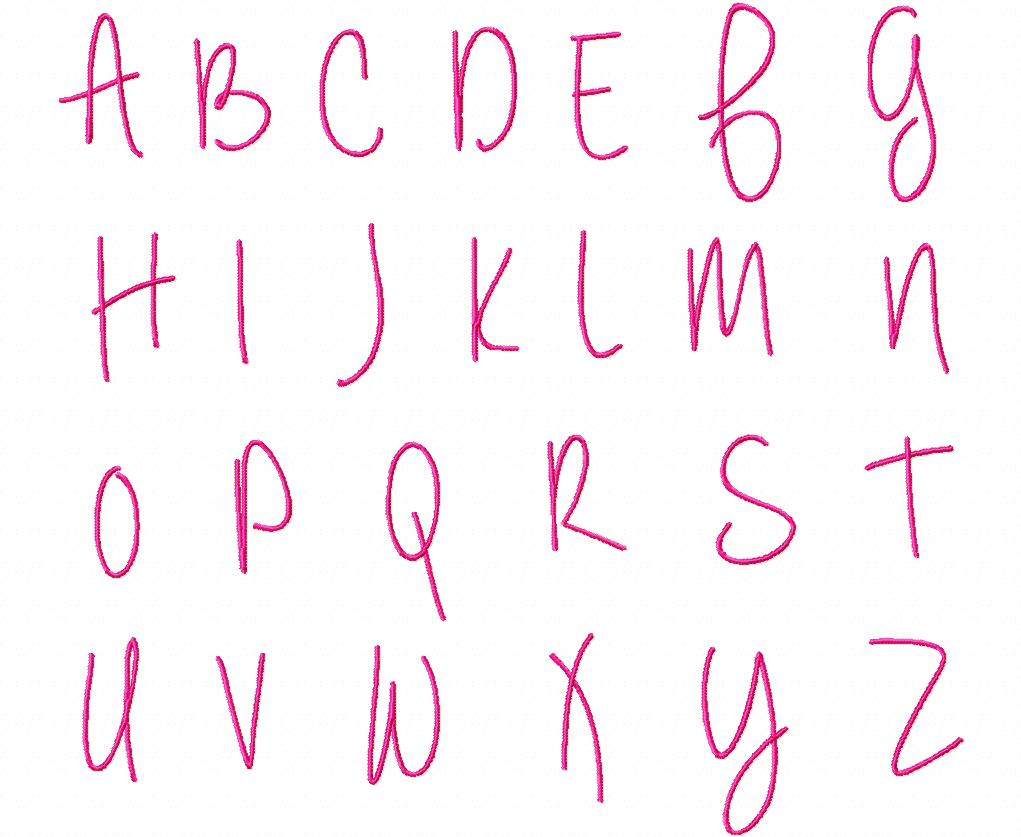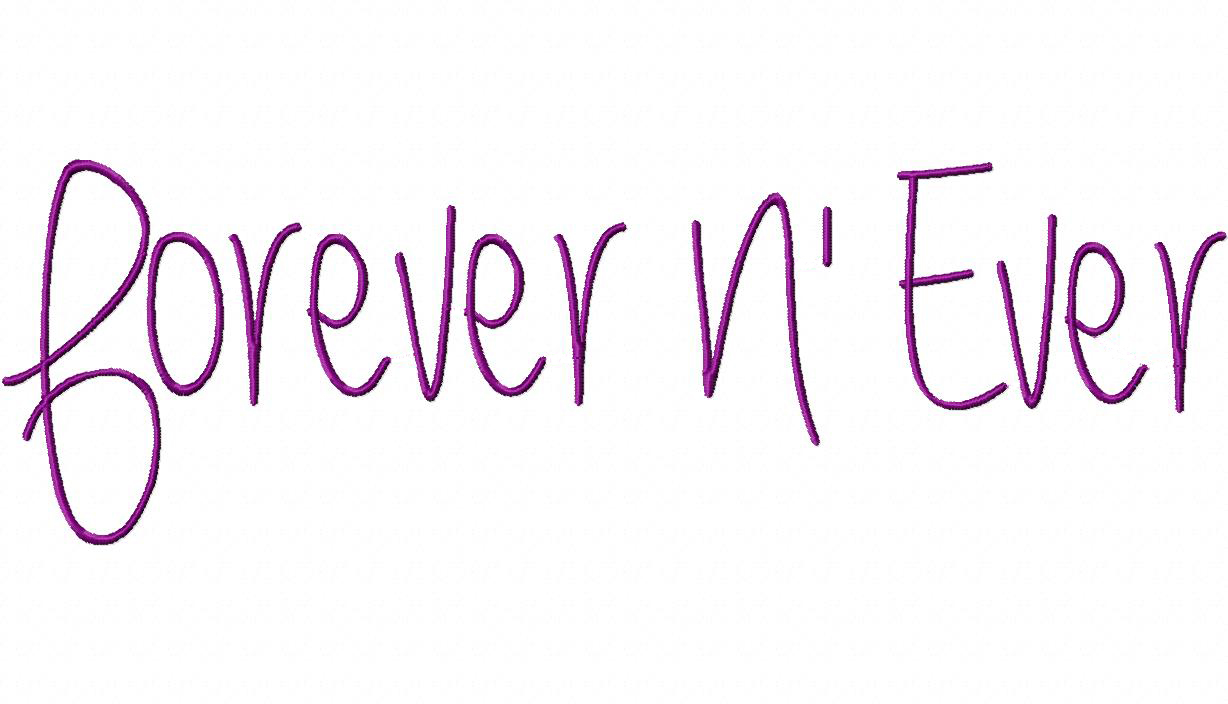
Today's Gold Member design is the awesome and sleek Forever n' Ever machine embroidery design font set. This font is a fully featured set and is a great addition to any embroidery library. Gold Members download below.
The Forever n' Ever Font Set includes Uppercase and Lowercase letters, Numbers and Bonus Punctuation and comes in 3 sizes .75" 1" and 1.5". All characters done in Satin Stitch.